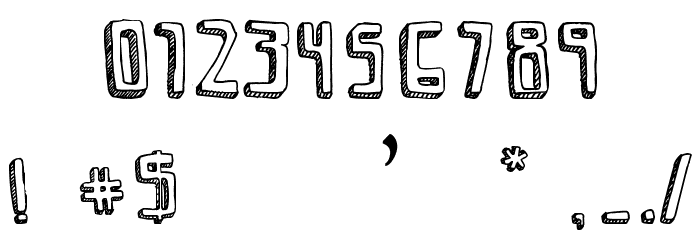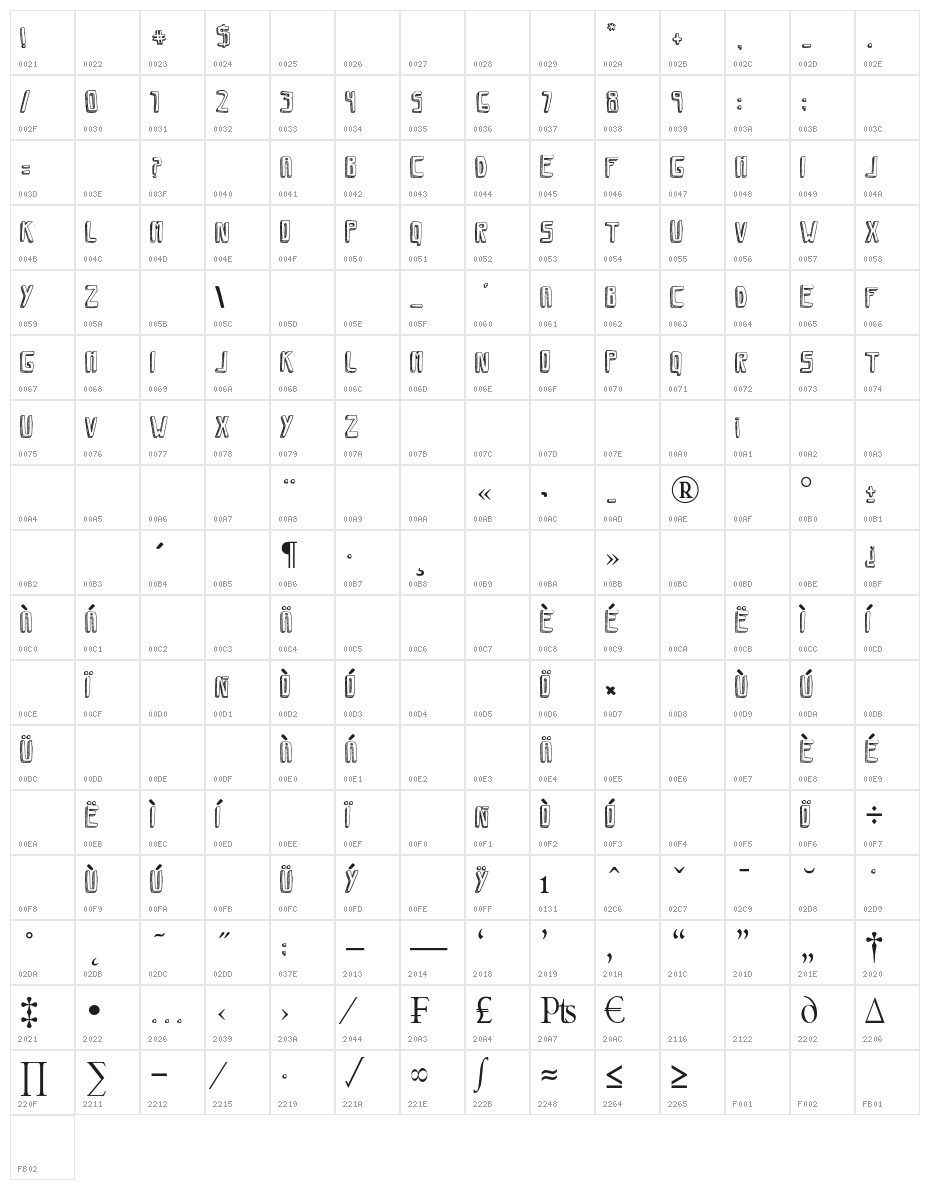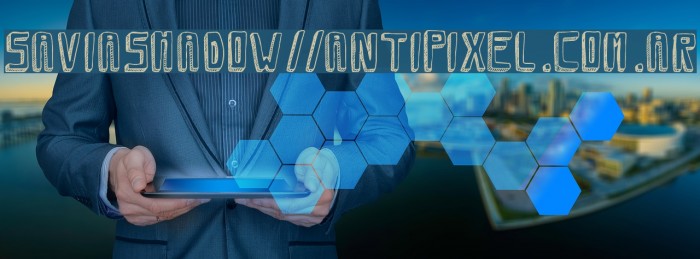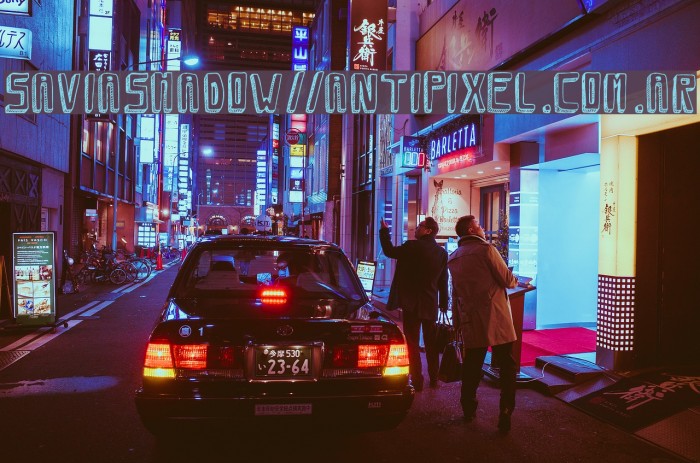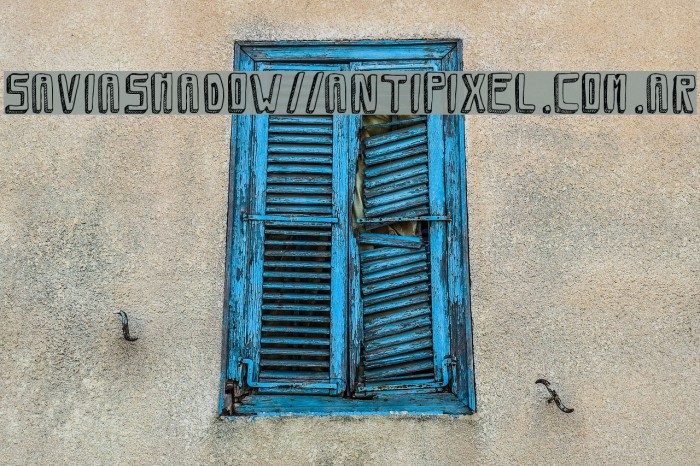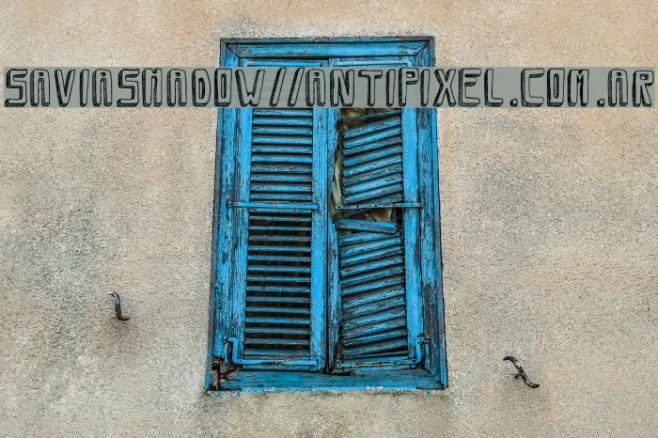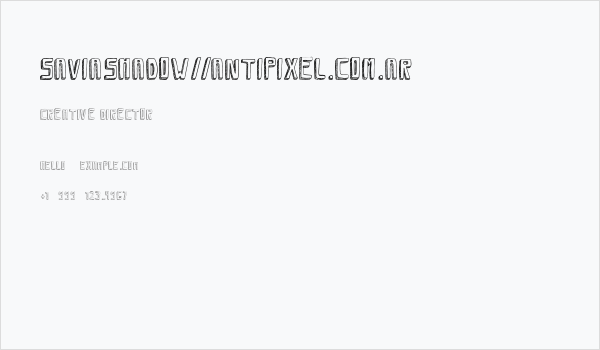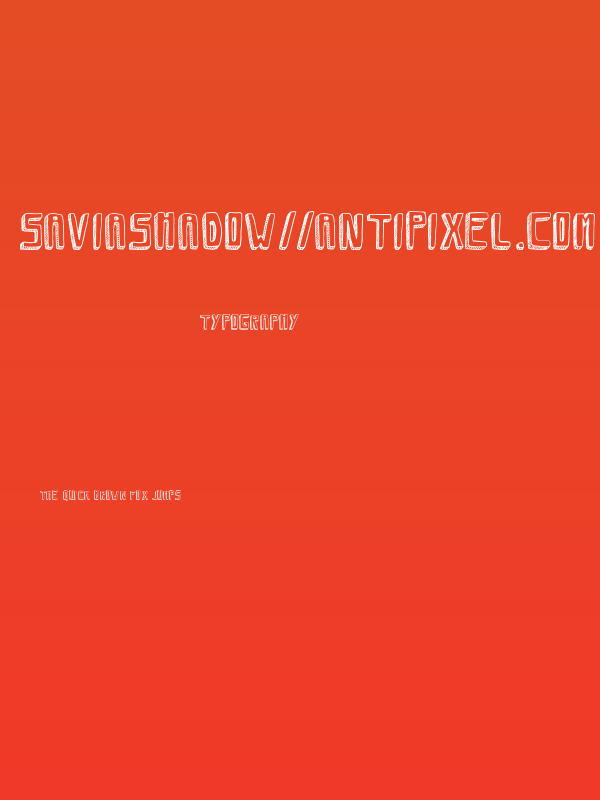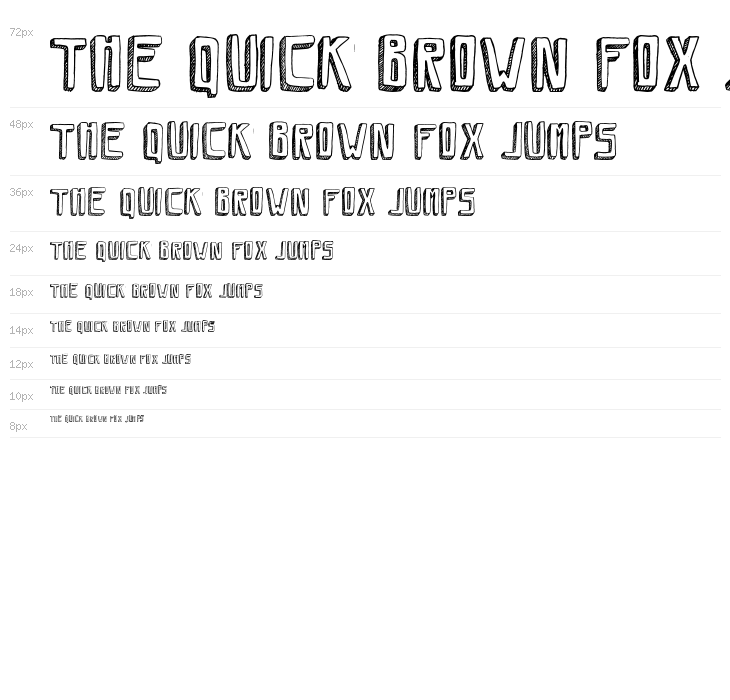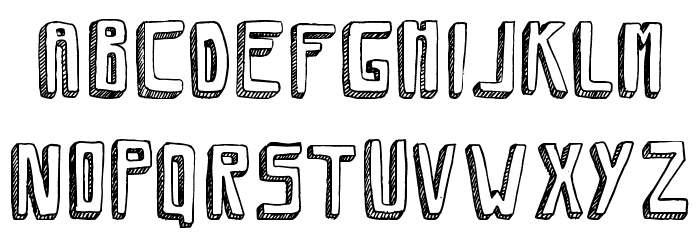
SaviaShadow//ANTIPIXEL.COM.AR Font
SaviaShadow//ANTIPIXEL.COM.AR Description
This font features a bold, hand-drawn style with a distinct shadow effect that gives it a three-dimensional appearance. The characters are outlined with a thick, black border and filled with diagonal hatching, adding texture and depth. This playful and artistic design is reminiscent of comic book lettering, making it ideal for projects that require a fun and engaging visual element. The uppercase letters, numbers, and special characters maintain a consistent style, ensuring a cohesive look across different uses. The font's unique shadowing and sketch-like quality make it stand out, perfect for creative and informal applications.
| Proposed Projects | Ideal for comic books, children's books, posters, and playful branding. |